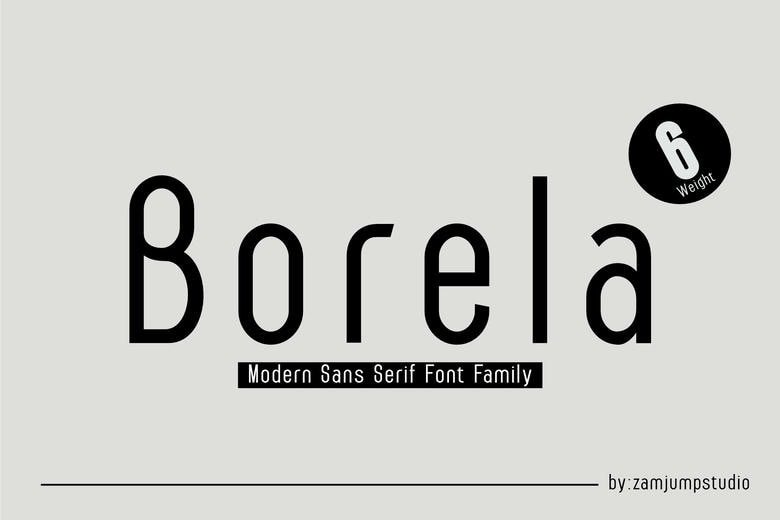
Borela Font
Introducing BORELA – A Modern Sans Serif Typeface. Are you looking for a versatile typeface that balances clean modernity with strong visual impact? Meet BORELA – a contemporary sans serif font designed for maximum adaptability and elegance.
Whether you’re crafting a bold book title, setting readable body text, designing striking packaging, or creating standout branding and logos, BORELA has you covered. Its geometric structure and smooth letterforms make it perfect for both print and digital use.
Borela Sans Serif Font